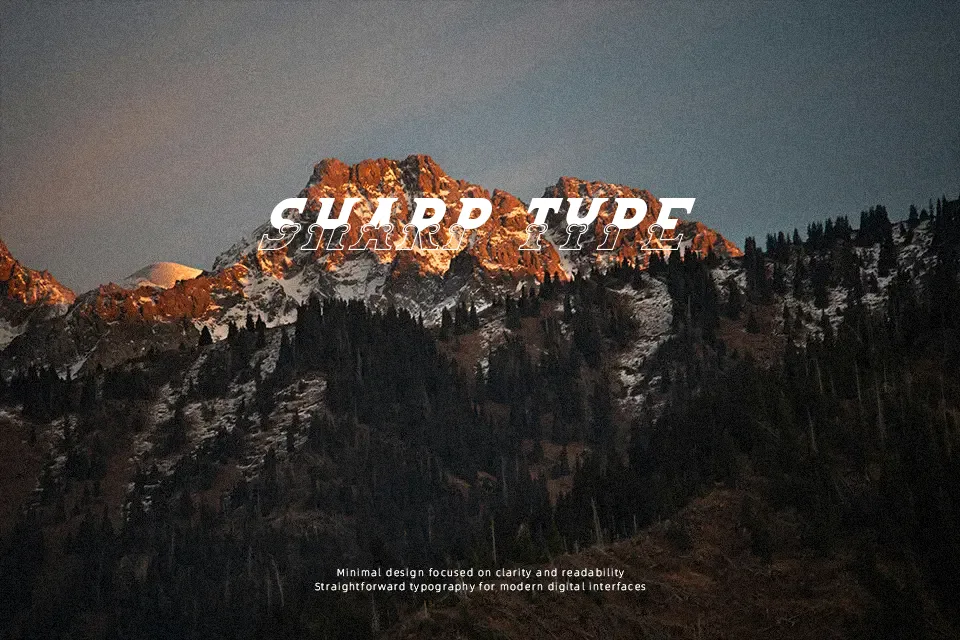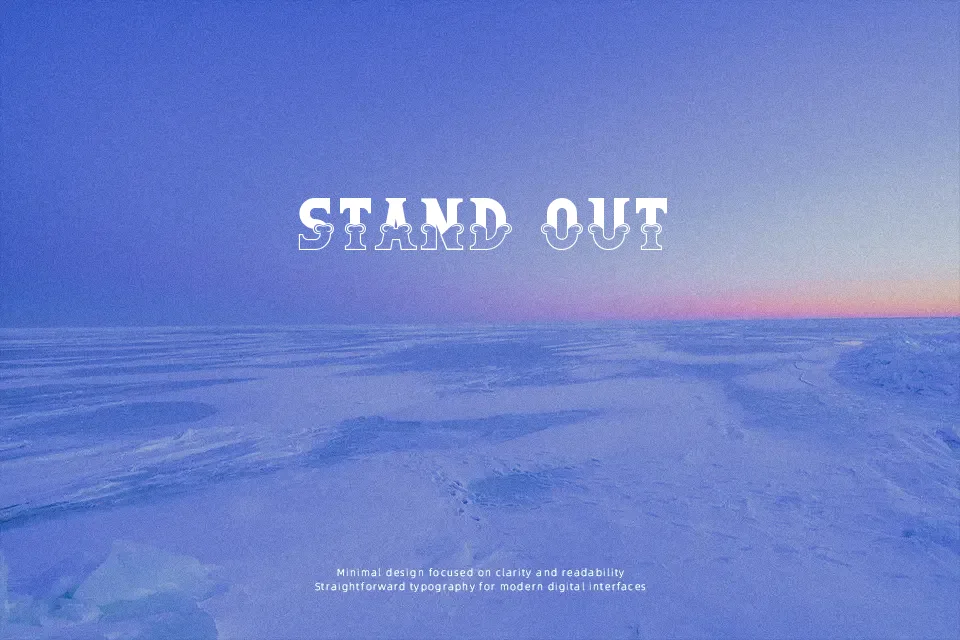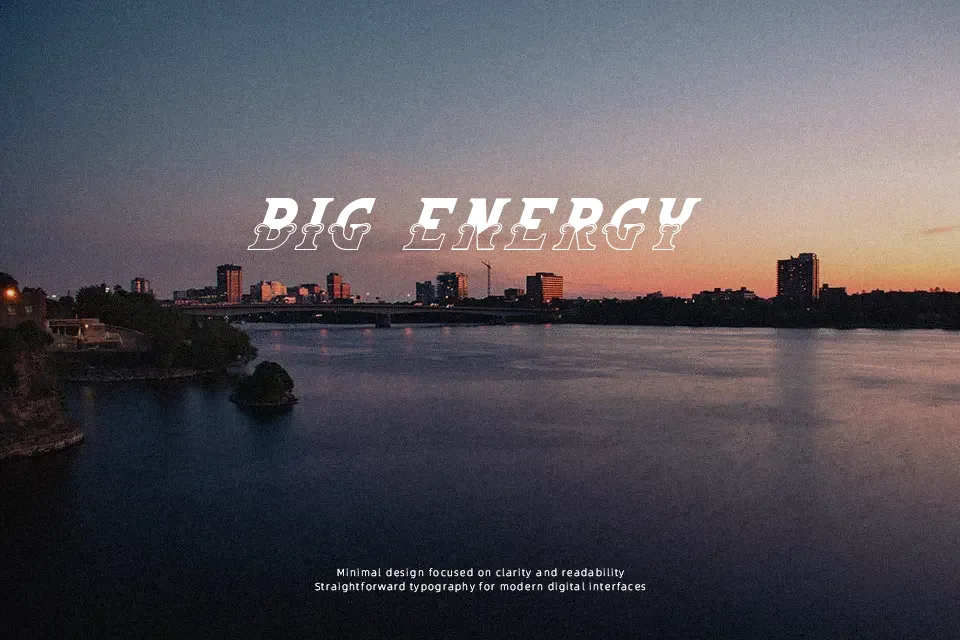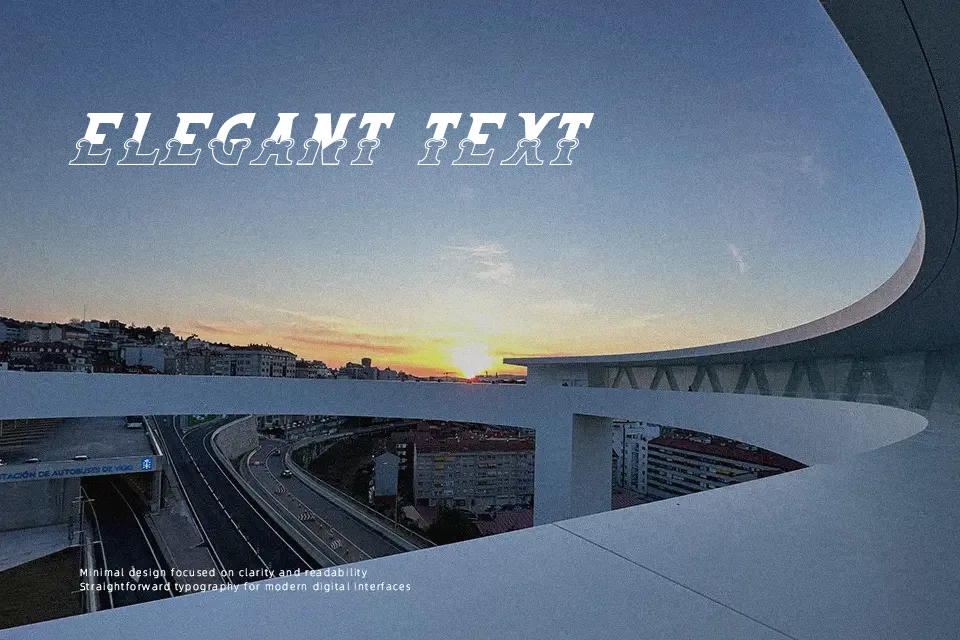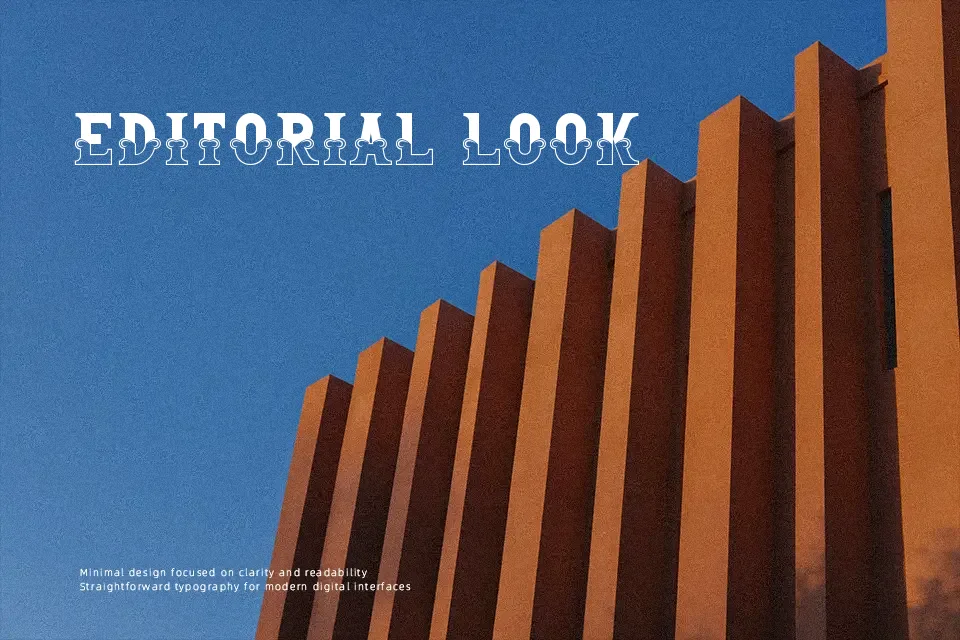
Circus Fun Font
Circus Fun Font introduces an energetic decorative display aesthetic characterized by heavy stroke weights, whimsical contours, and animated proportions. The letterforms exhibit striking structural variations with pronounced curves and playful baseline shifts that create an unmistakable carnival atmosphere. Generous internal spacing and distinct character outlines ensure immediate visual clarity when deployed in prominent headlines, amusement park signage, and festive product packaging. However, the exaggerated decorative geometry and bold density make the typeface unsuitable for continuous reading or compact layout settings. The design functions at its peak when showcased at generous display scales, providing maximum personality and vibrant artistic impact.
Best For: carnival event posters, children party invitations, theme park merchandise, animated title screens
Not Ideal For: continuous body text, corporate financial reports, technical documentation, mobile interface subtext
Perfect for advertising, headline, and kids, with a bold and cartoon style.